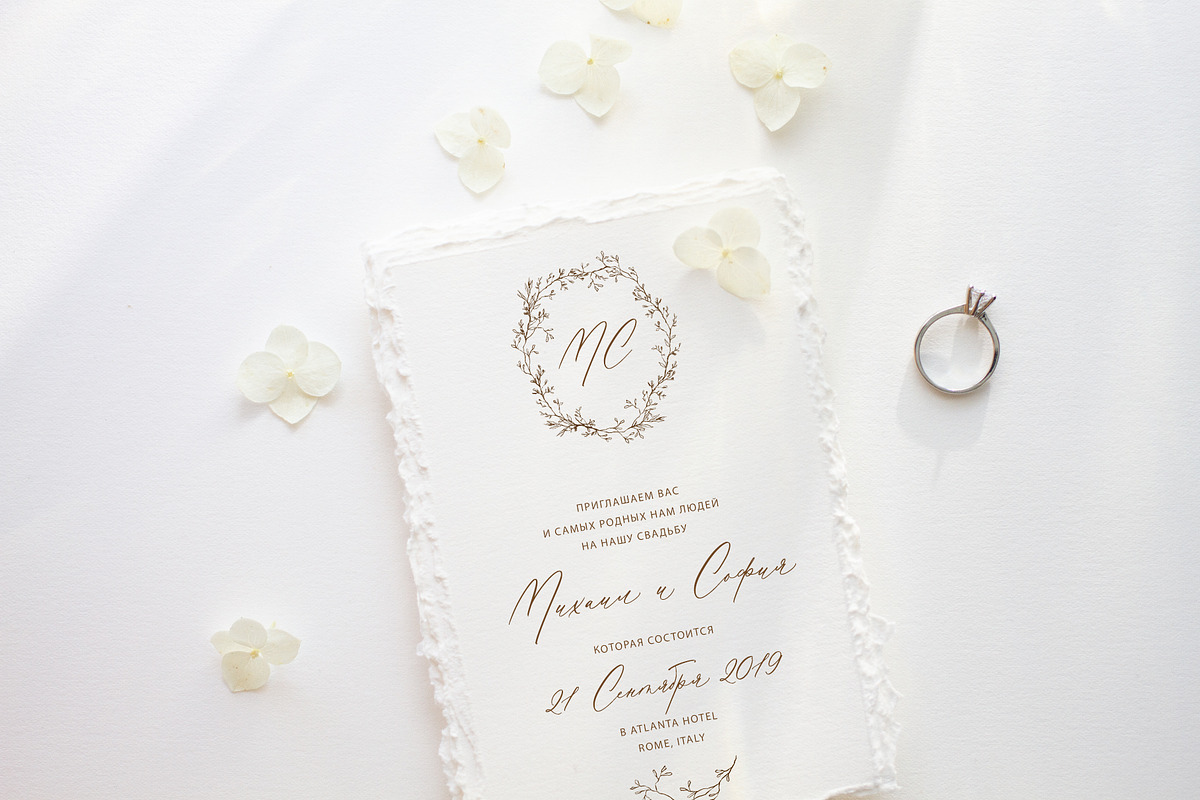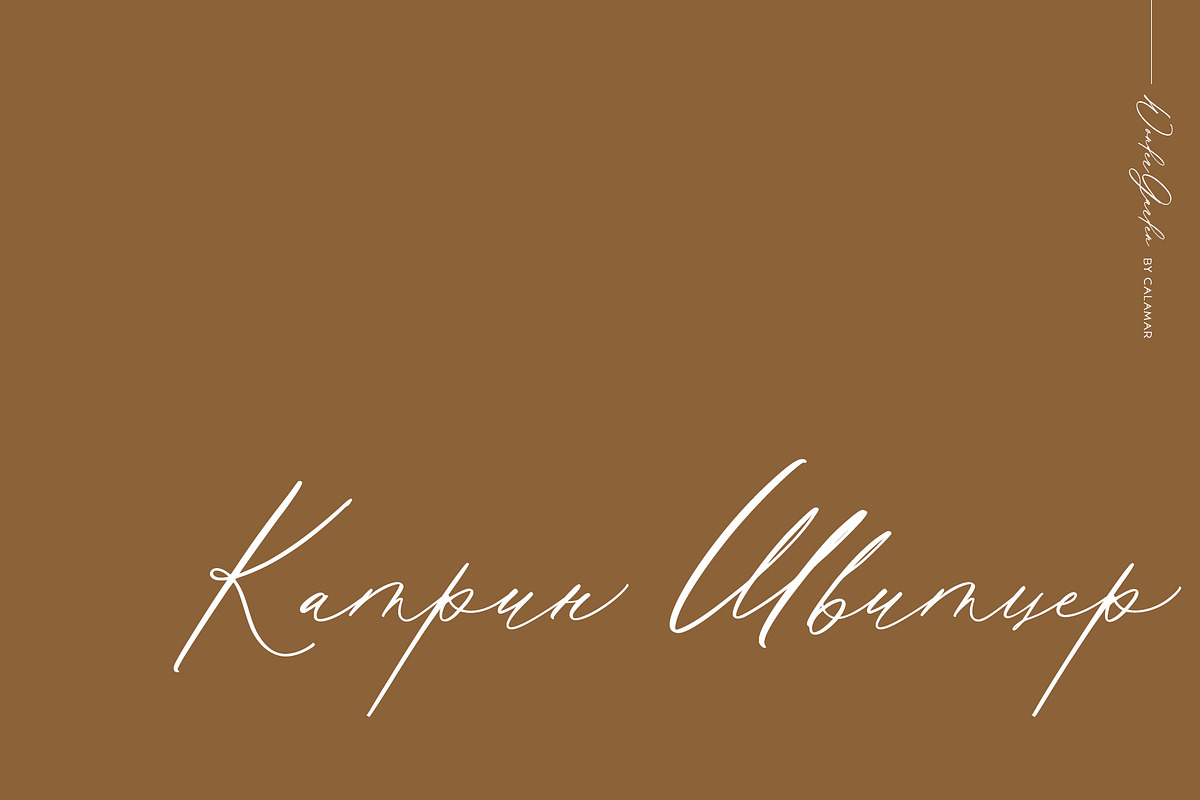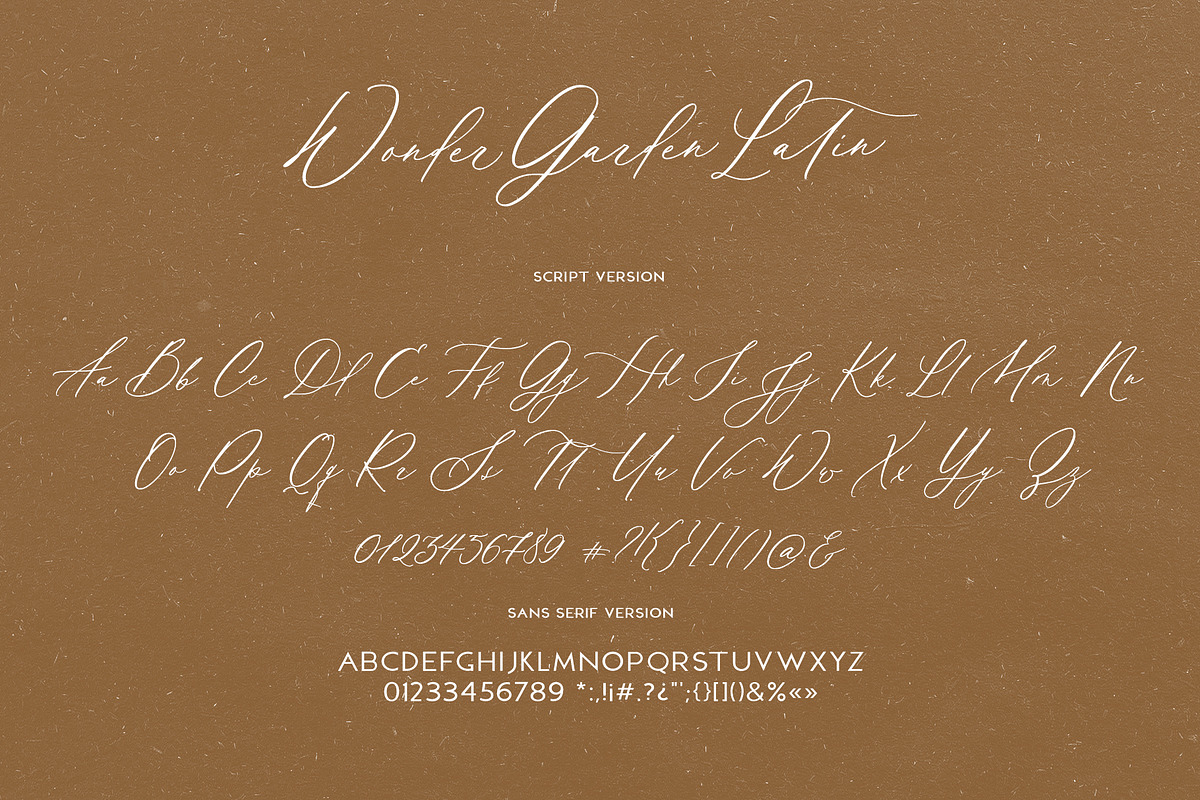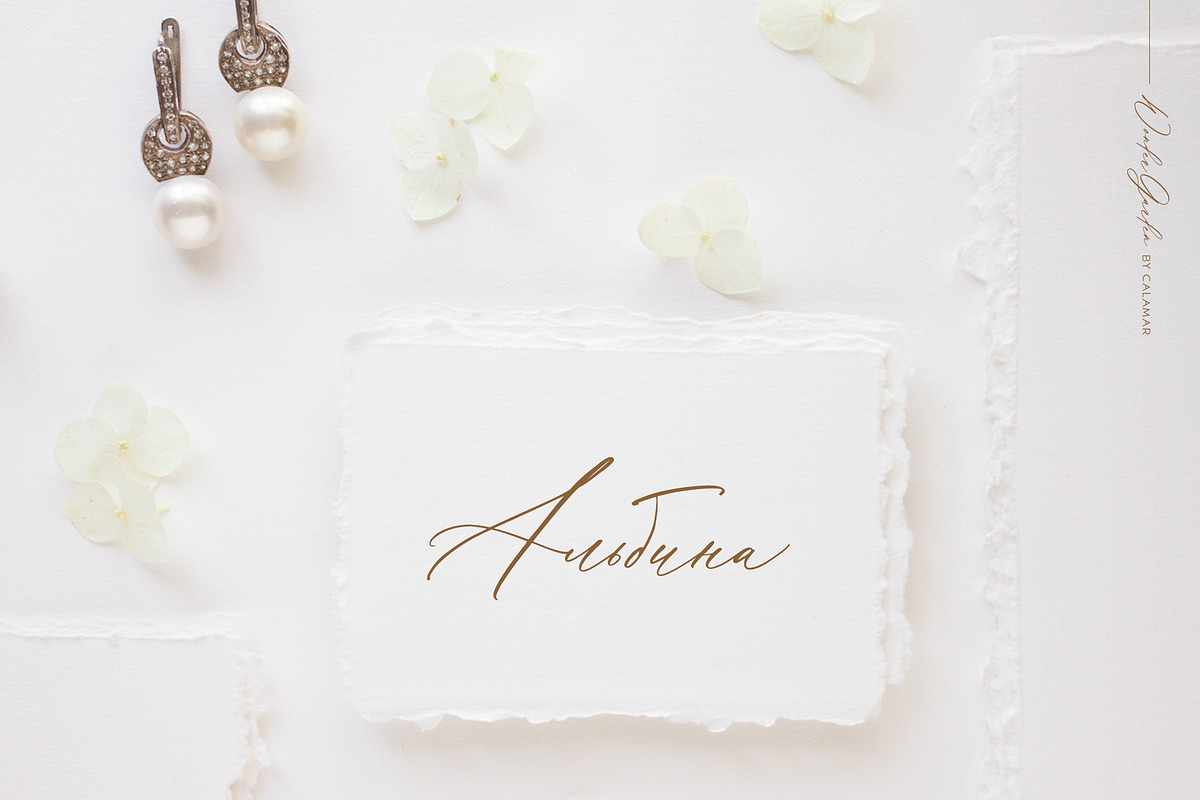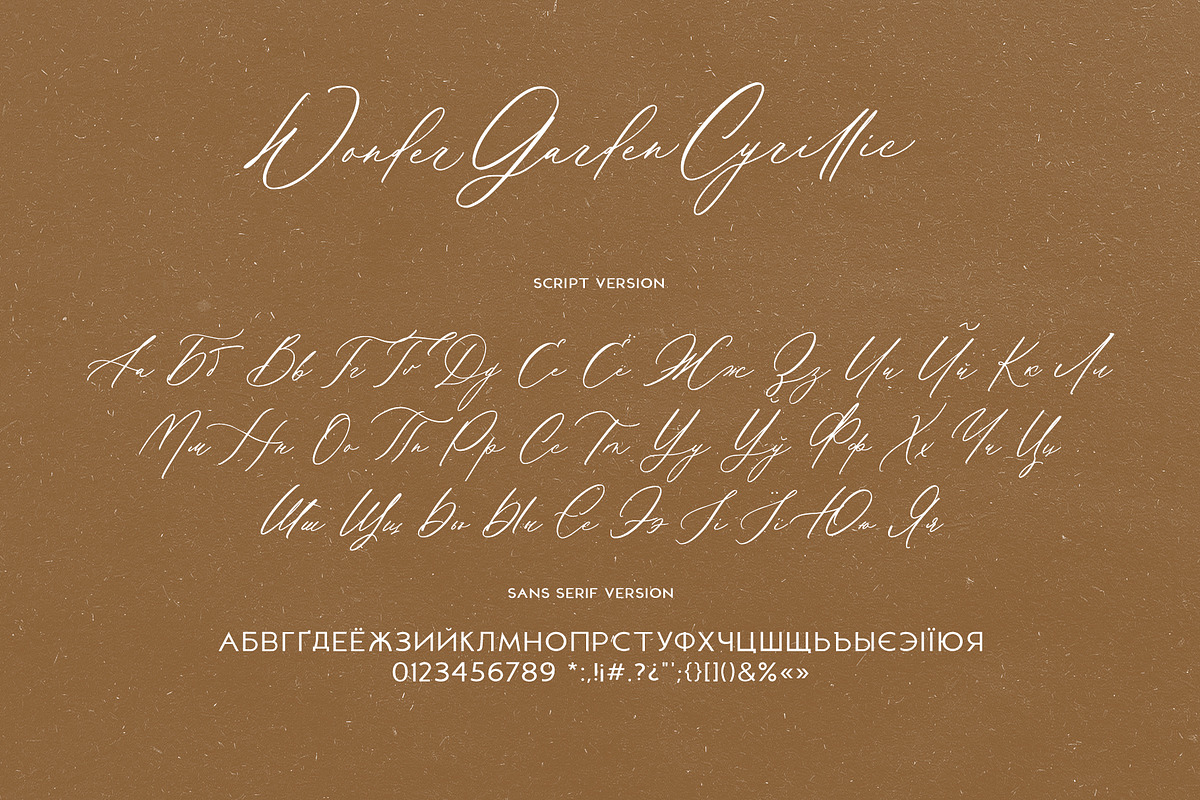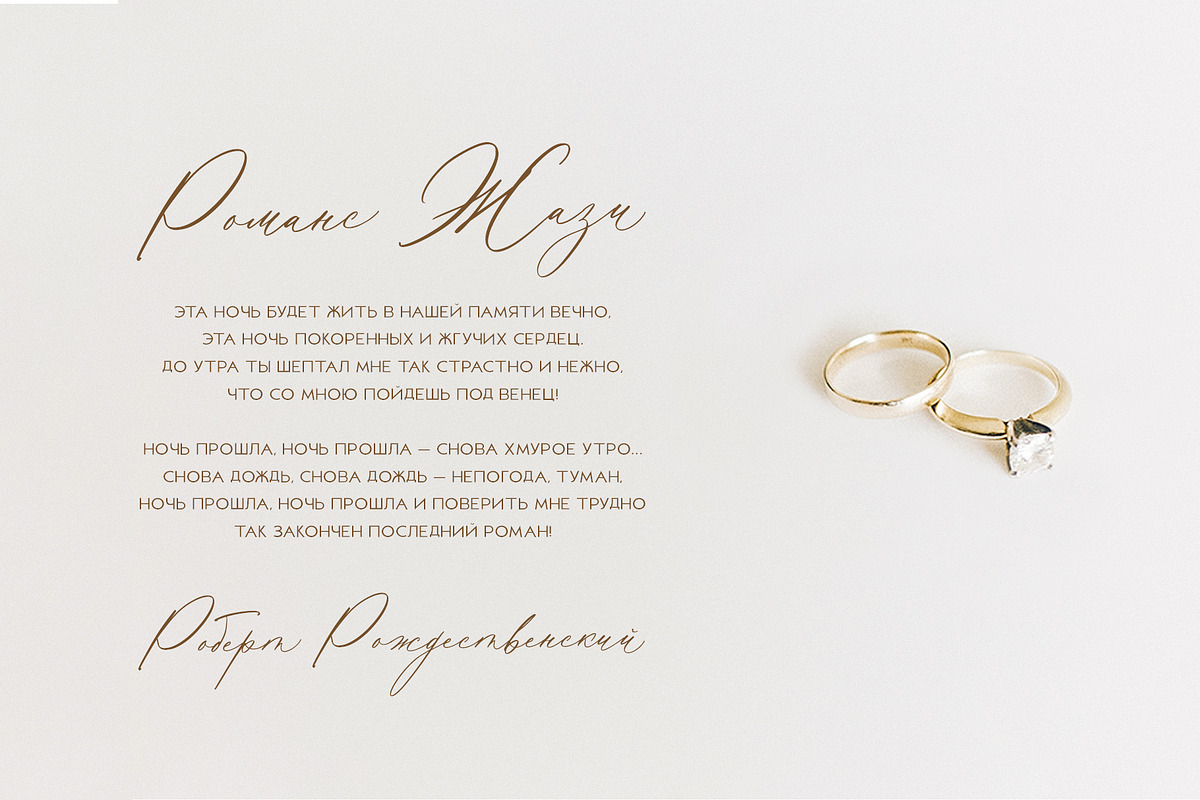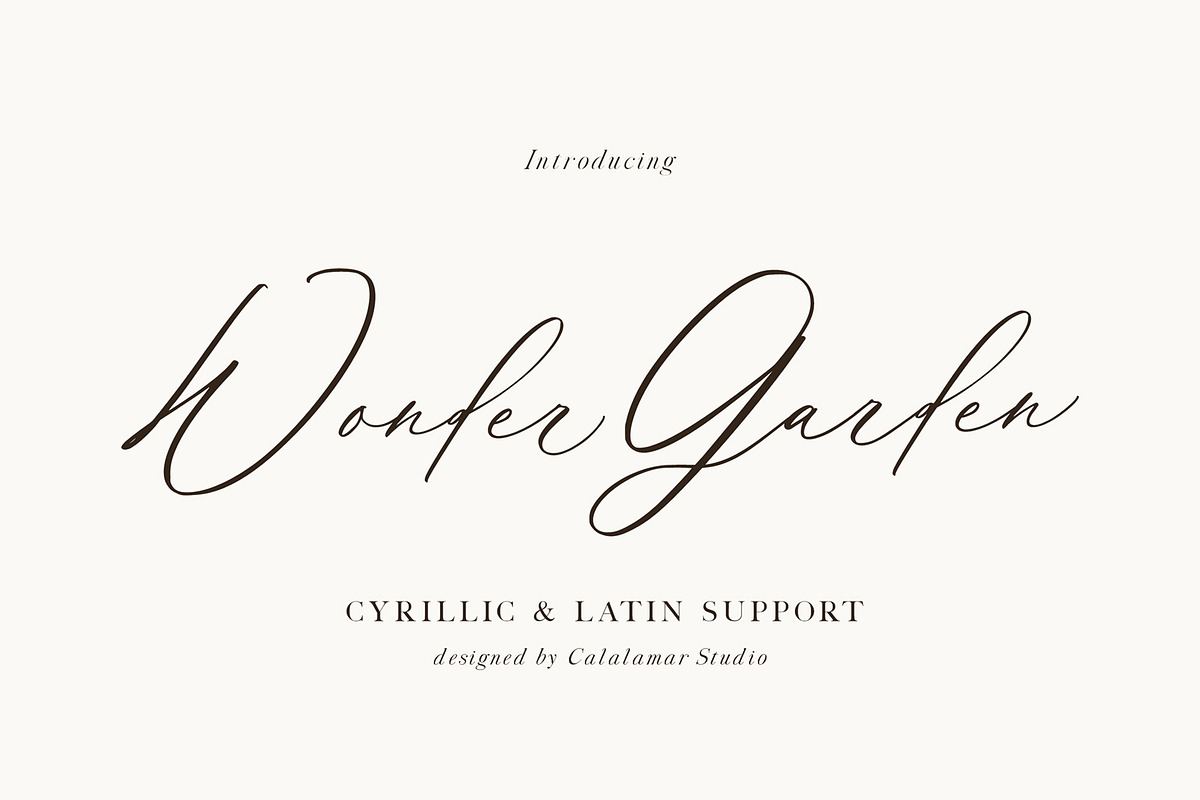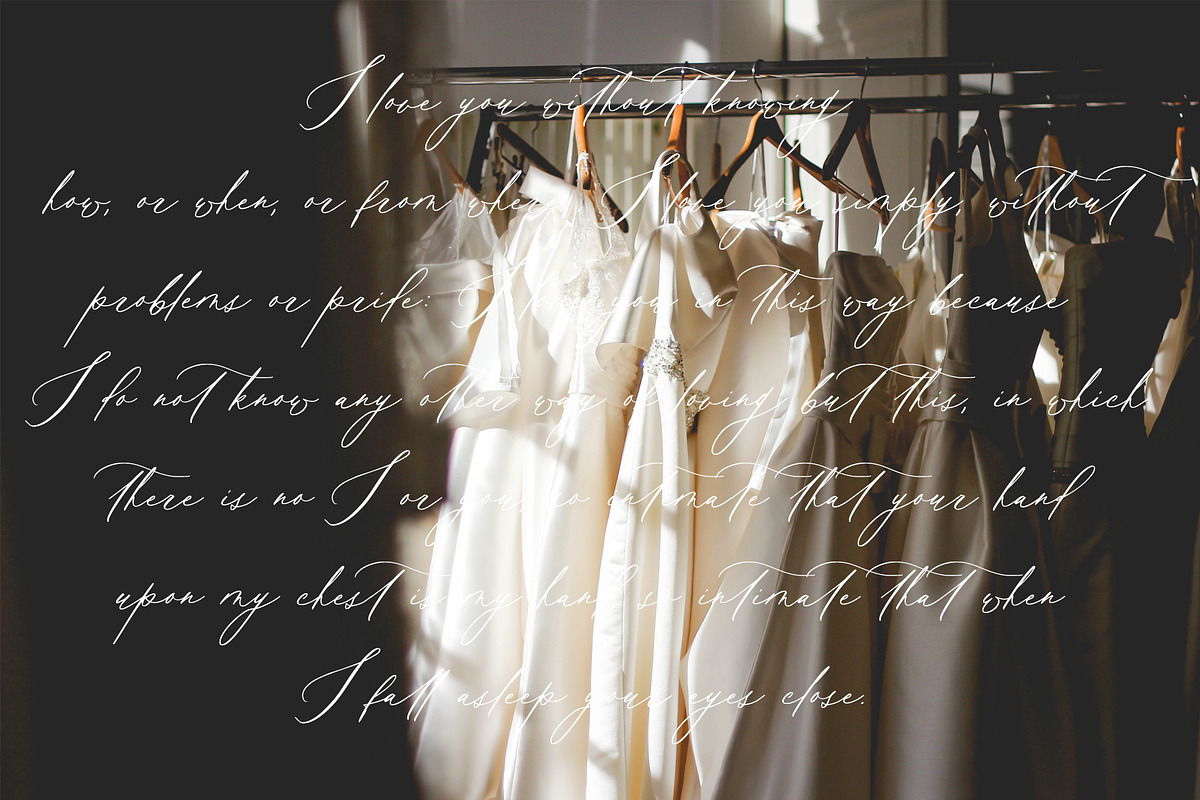
Wonder Garden | Latin&Cyrillic Font
I know you have been waiting for this :) And new modern calligraphy font with Latin & Cyrillic support is here. It's Wonder Garden Script.
This beautiful font is for those who are needing of elegance and stylish for their designs and particularly well suited for wedding invitations, cards and feminine branding.
Wonder Garden Script includes Uppercase and Lowercase Cyrillic and Latin Basic Characters, Numbers and Punctuation. Also the font contains ligatures and stylistic alternates (for initial and final letters) to perfectly re-create natural calligraphy.
Wonder Garden Script supports Latin & Cyrillic alphabets giving a huge range of language support, including:
- albanian, belarusian, bosnian, bulgarian, croatian, czech, danish, dutch, english, estonian, filipino, finnish, french, german, hungarian, icelandic, indonesian, irish, italian, latvian, lithuanian, luxembourgish, polish, portuguese, romanian, russian, slovak, slovenian, spanish, swedish, swiss german, turkish, turkmen, ukrainian, welsh and much more.
Like a bonus you'll get the Sans Serif font too that is perfect pair to script. It's a classy high contrast font that contains only uppercase characters, numerals and punctuation. Now to create own wedding invitation is super easy and quick.